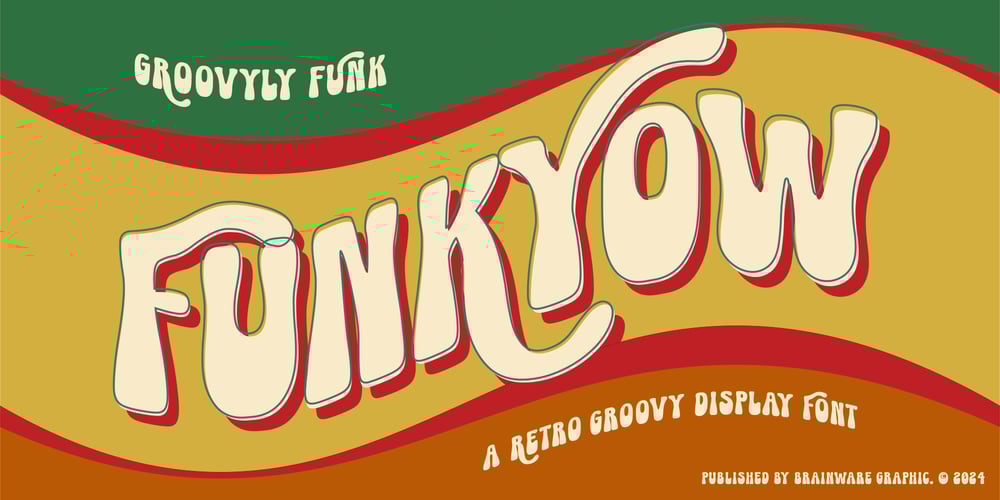
Funkyow Font Family was designed by Muhammad Jauhar Azmi and published by Brainware Graphic. Funkyow contains 1 styles and family package options. Funkyow is a playful retro font that features bold, wavy letters with a fun and colorful style. It’s great for making your text stand out in a cheerful and energetic way, perfect for posters, party invitations, etc